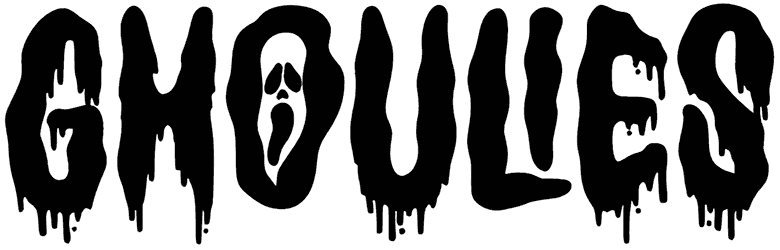
Ghoulies Font
Our suggestion for designers who are interested in the horror aesthetic is to use Ghoulies. This horror font has wave-like distortions that seem to be caused by continuous screams in the air molecules.
This dripping font can convey a strong charisma due to the combination of distorted lines with blood drops that will attract more audiences even without lowercase letters. This issue has made it a suitable choice for creating a different atmosphere in the fashion industry, magazines, filmmaking, and printing.